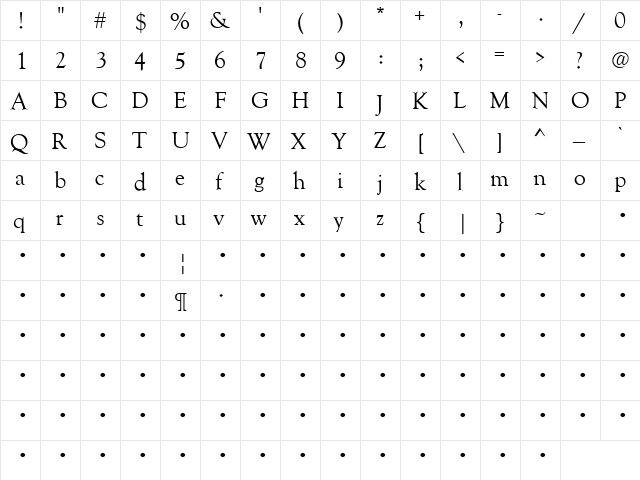
QTOldGoudy Regular
Design Context for QTOldGoudy Typeface
QTOldGoudy is a composed and adaptable typeface that performs quietly and consistently across a wide range of design contexts.